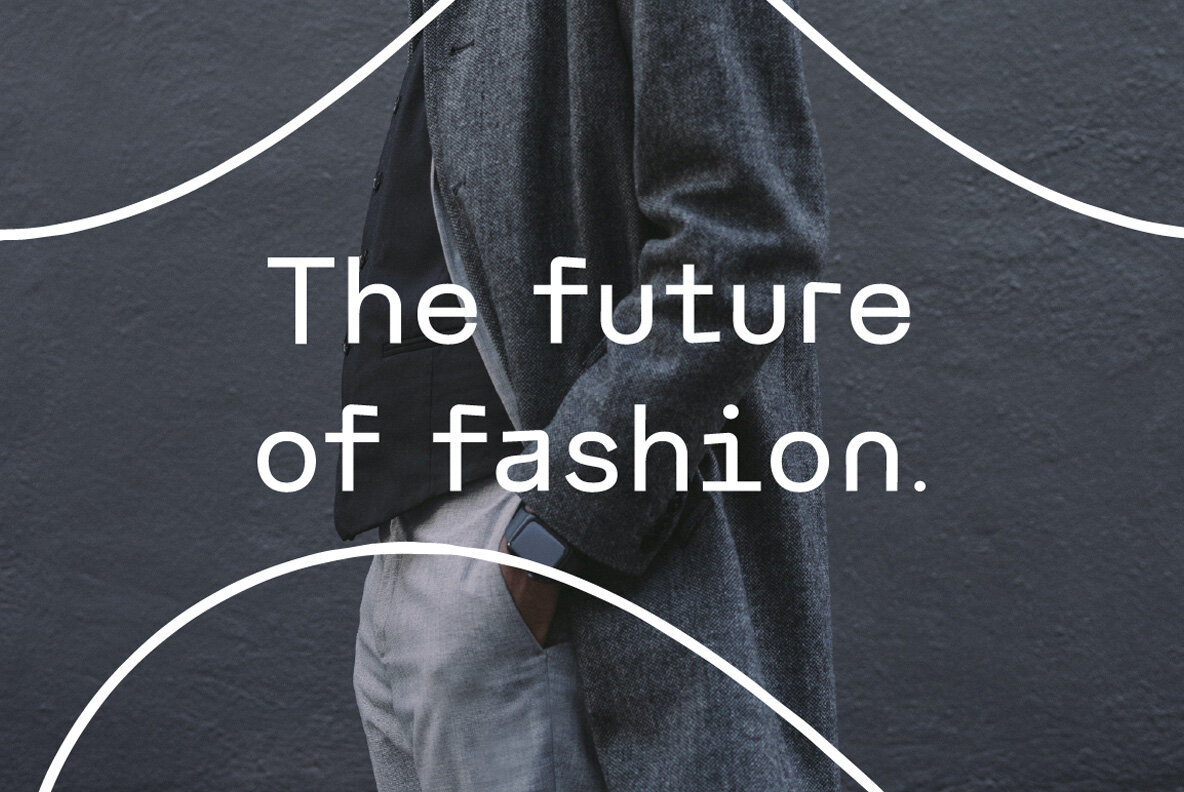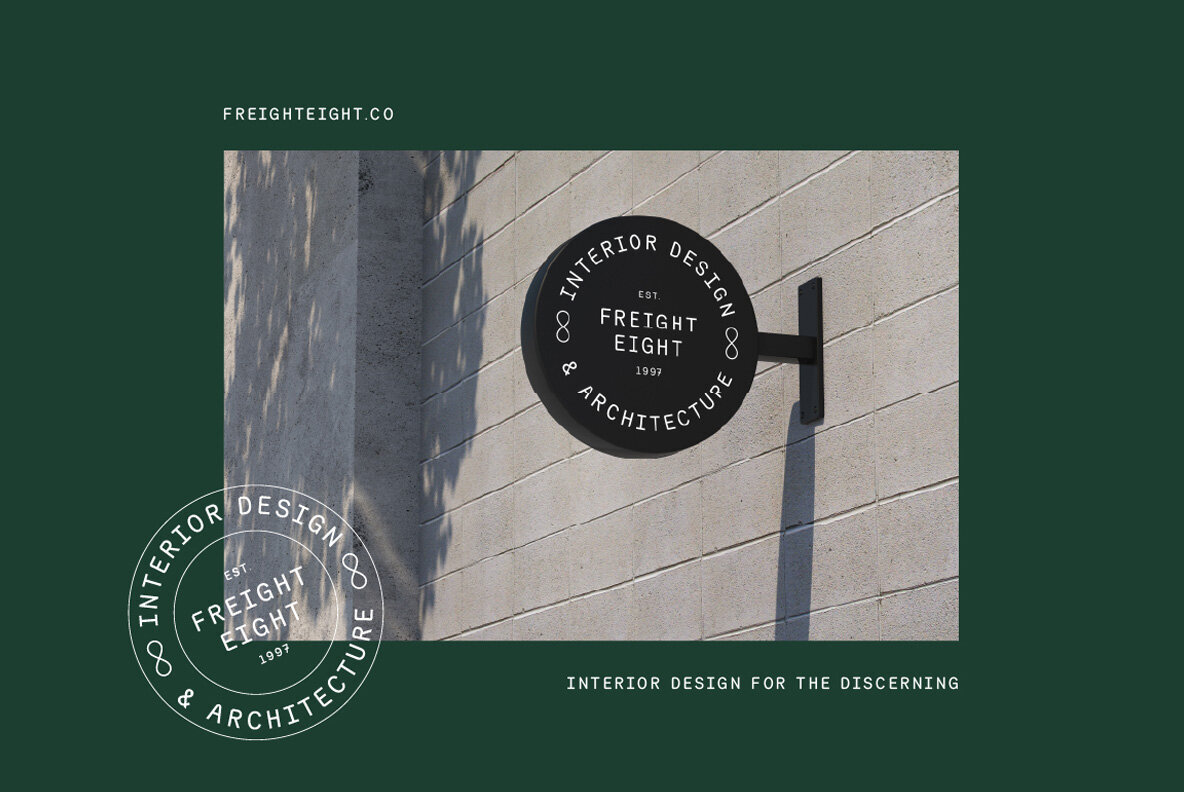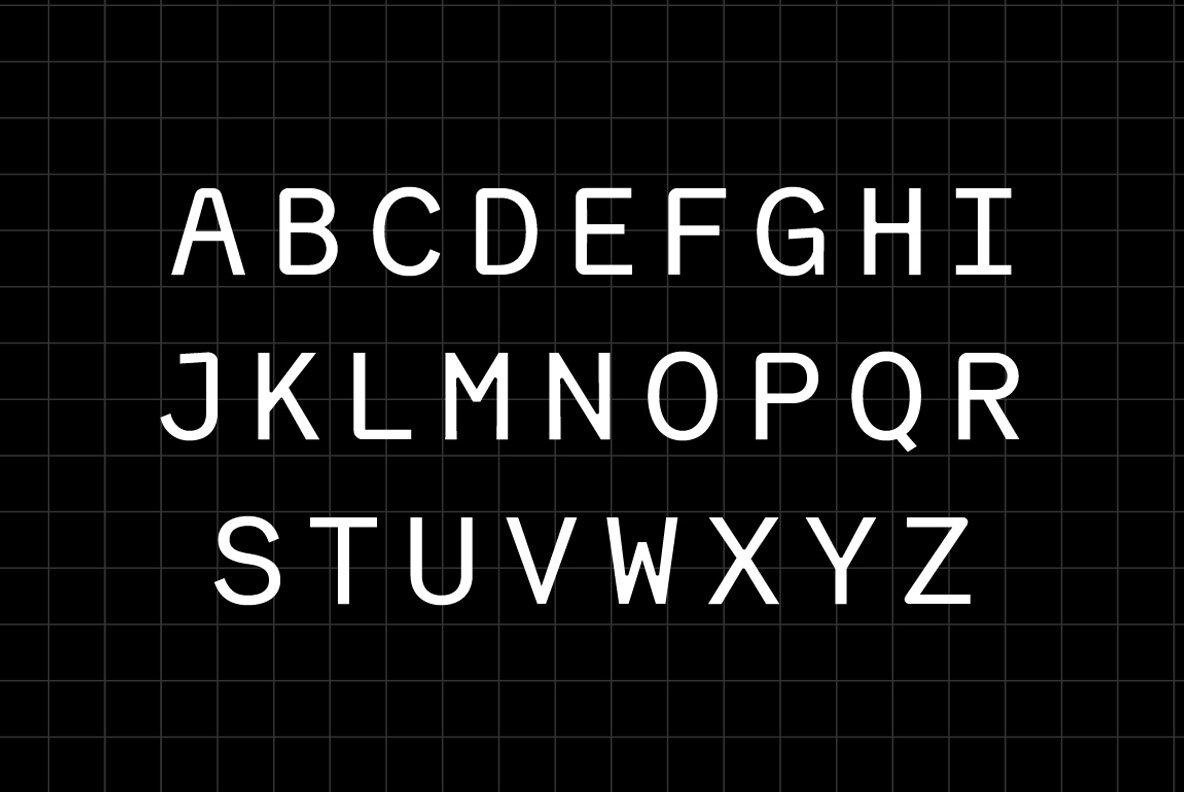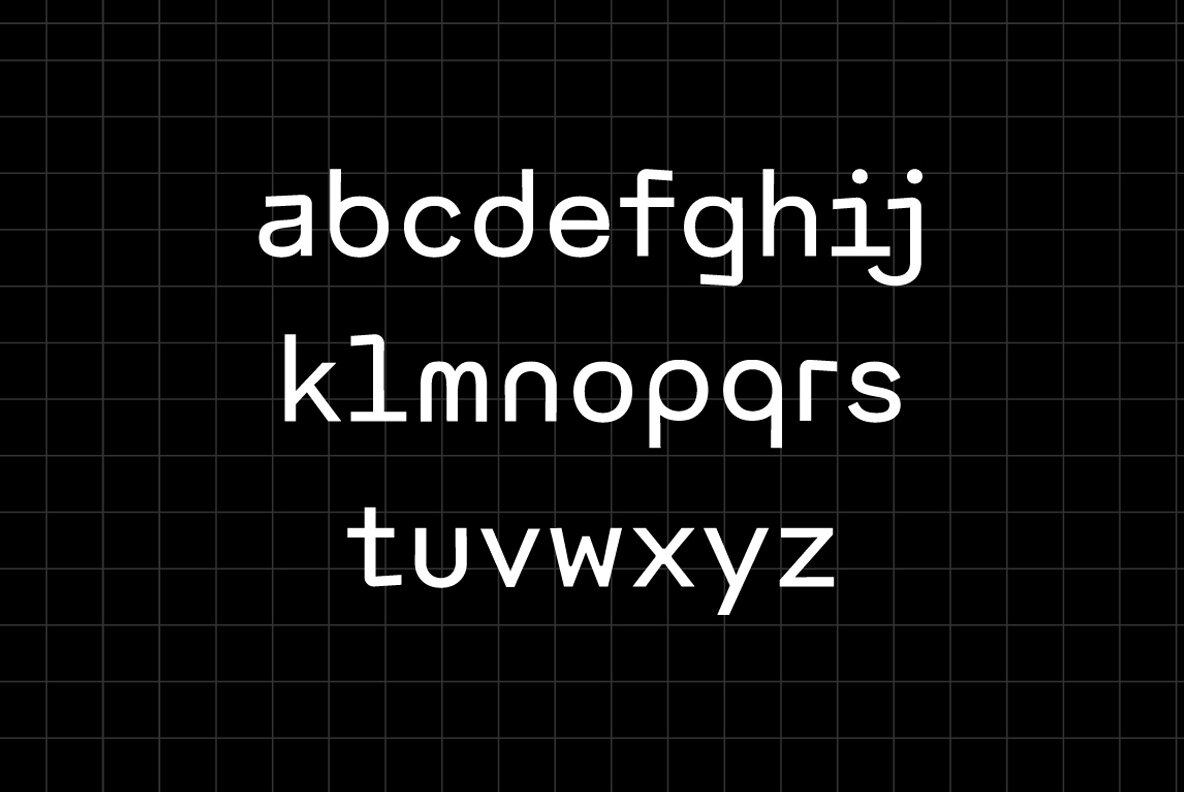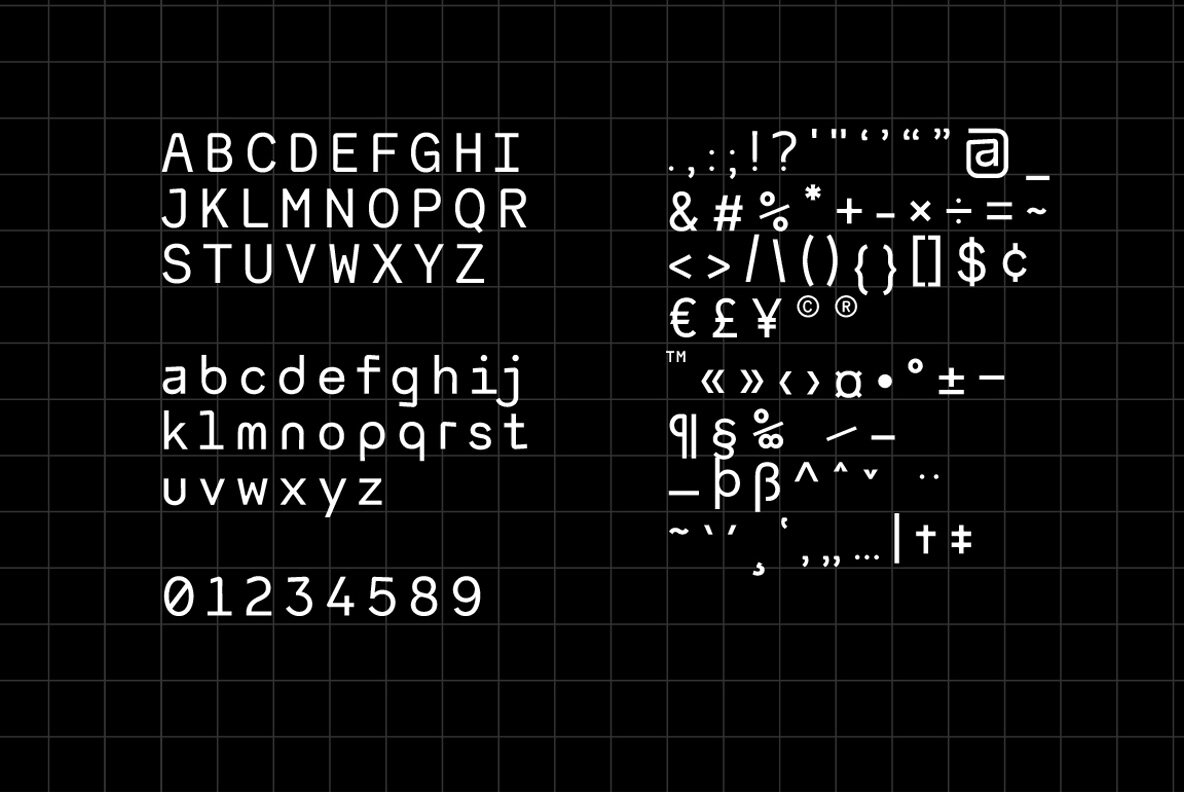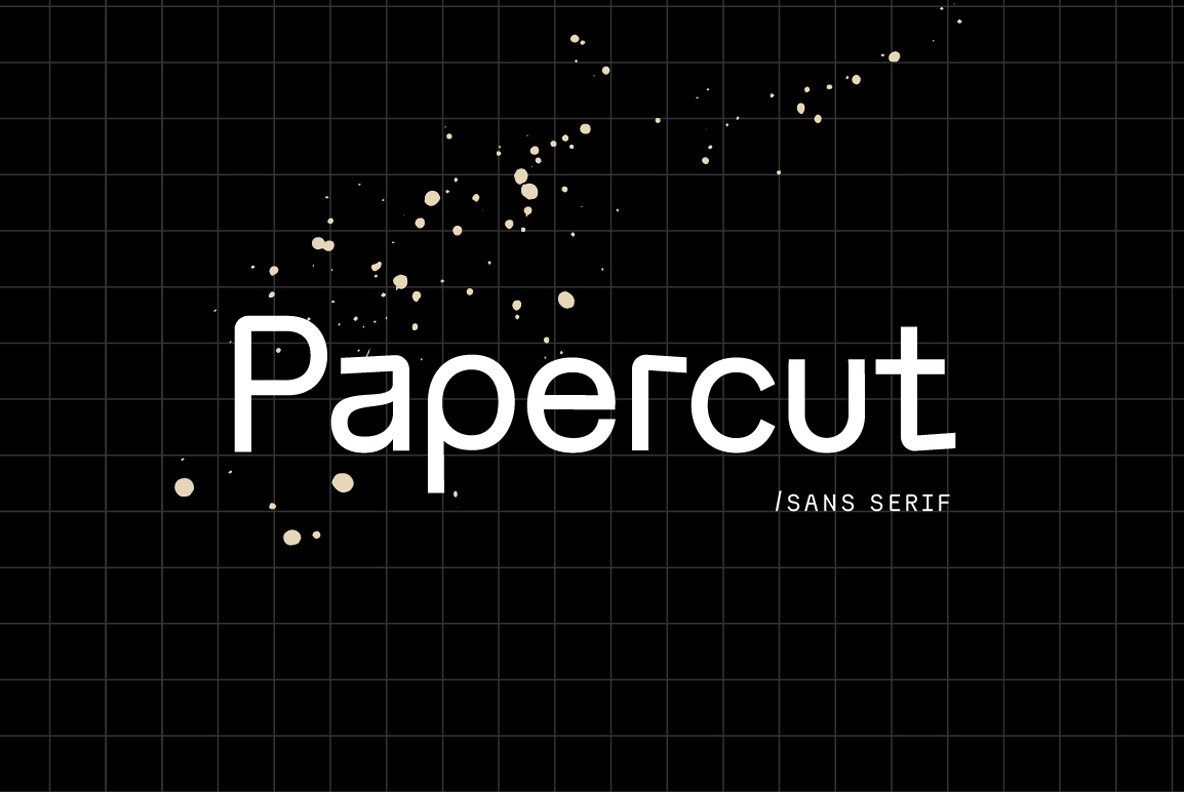
Papercut Font
Papercut
Papercut has a cool mix of soft and sharp edges. An edgy mono-inspired typeface with slanted terminals to create a unique look. Snag your copy of the Papercut today and get creative!